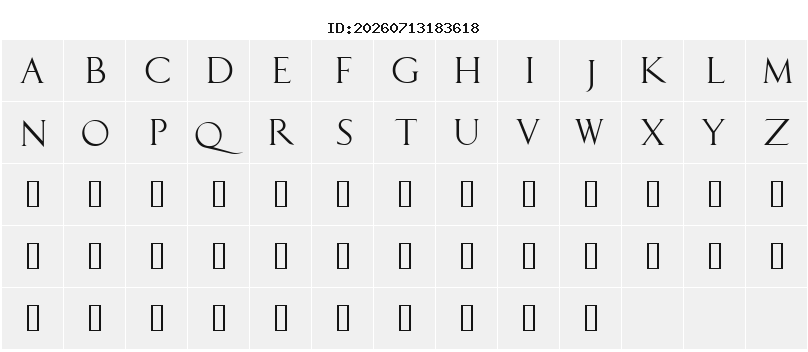
Backstabber Preview
• Font Name: Backstabber
• Font Style: Roman
• Font ID: Backstabber Roman
• Full Font Name: Backstabber Roman
About Backstabber.ttf
Backstabber.ttf is a modern, elegant sans-serif font designed for ultimate readability and visual harmony. Perfect for branding, headlines, web design, and print materials.